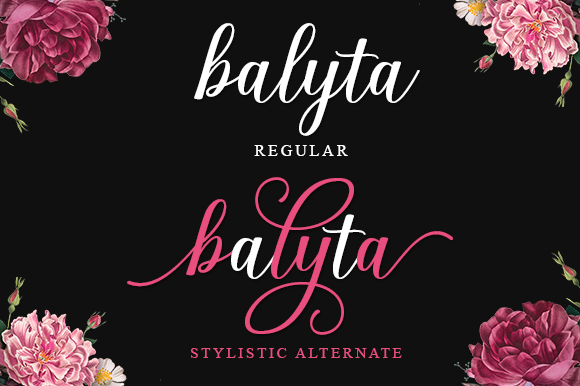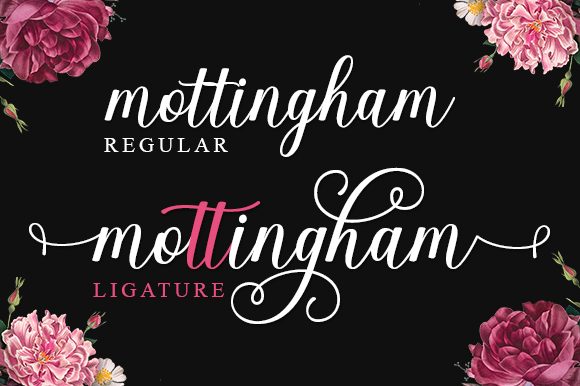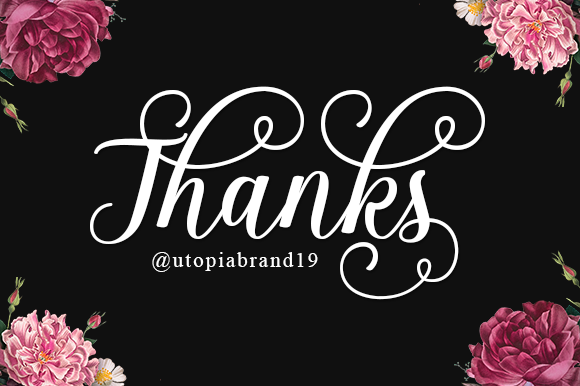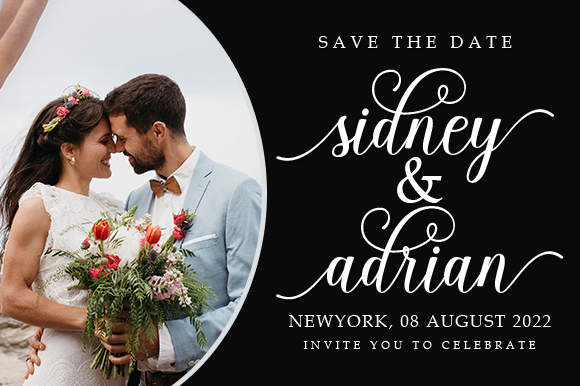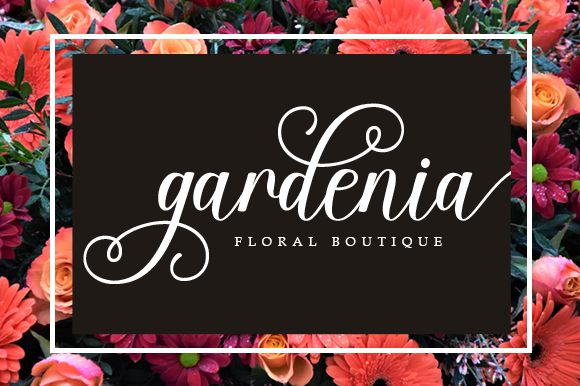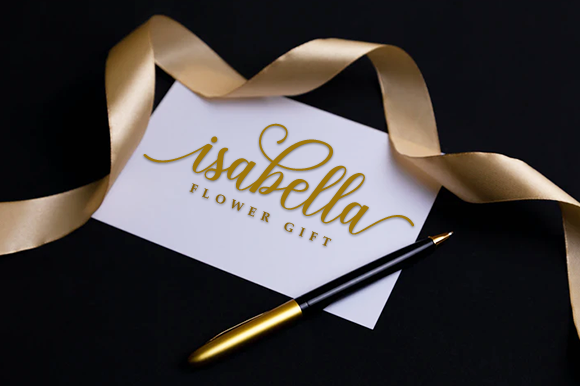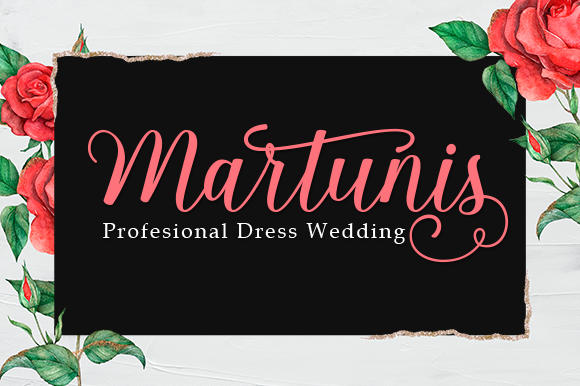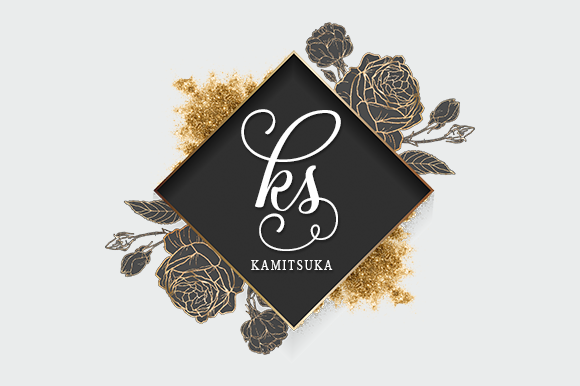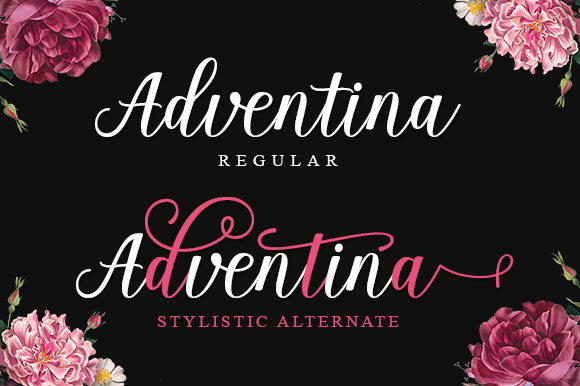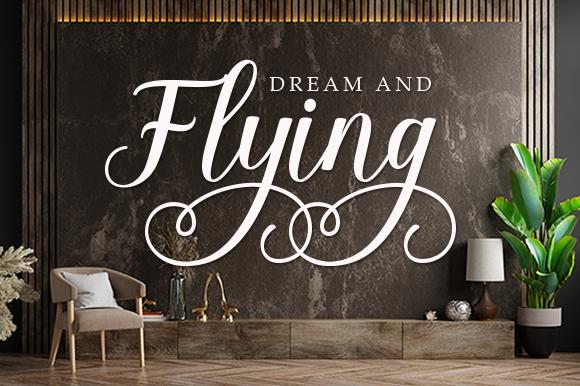
Adventina Script Font
About Adventina Script Font
Adventina Script is a chic, refined script font that emanates sophistication and elegance. Its stylish alternates and ligatures make this font the perfect match for any project. Adventina Script is PUA encoded which means you can access all glyphs and swashes with ease!